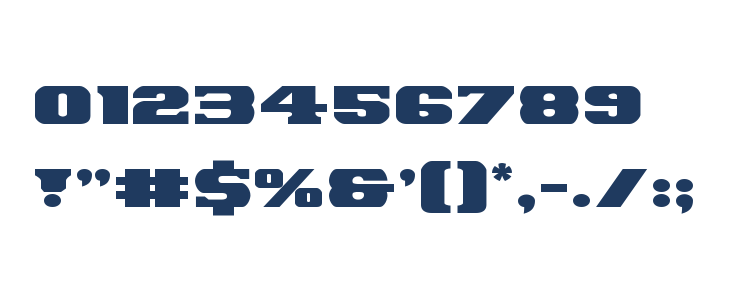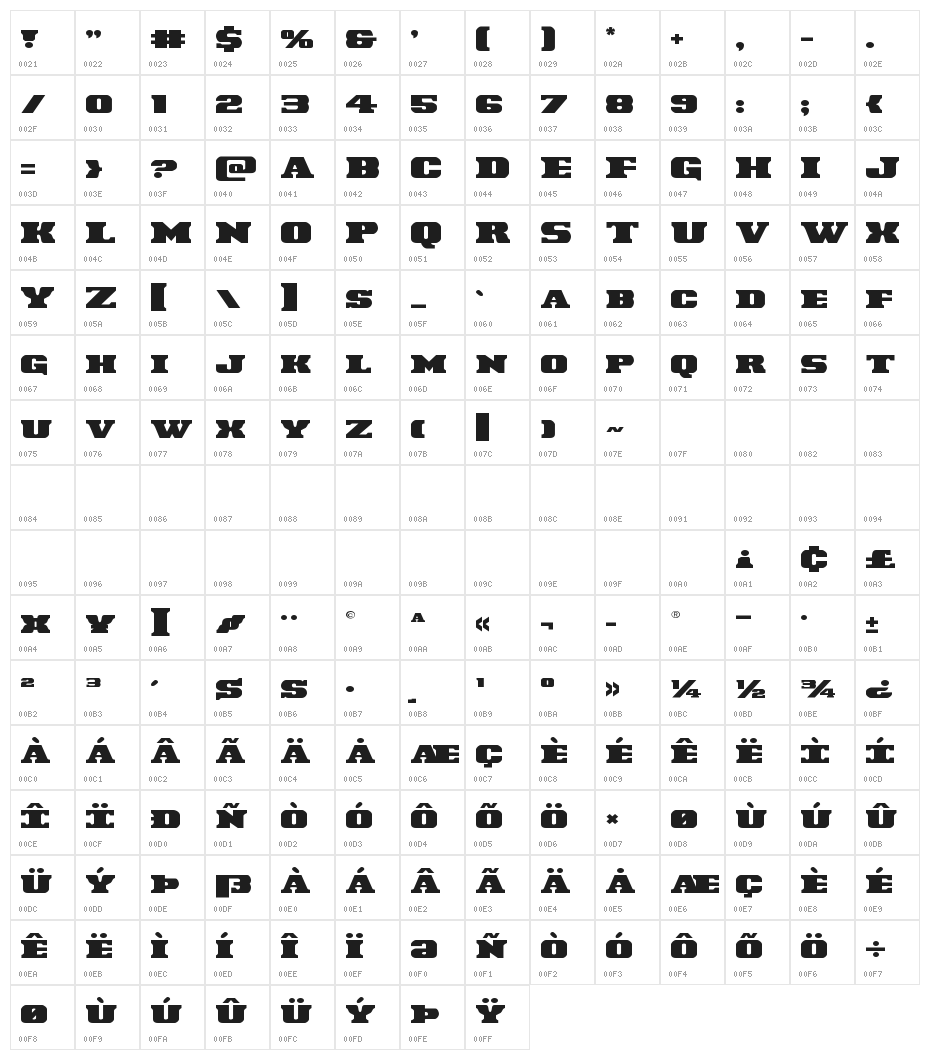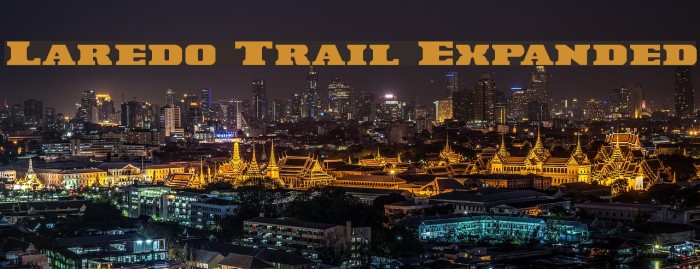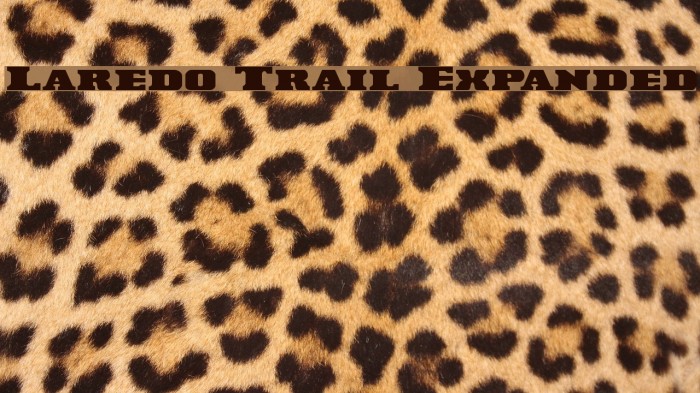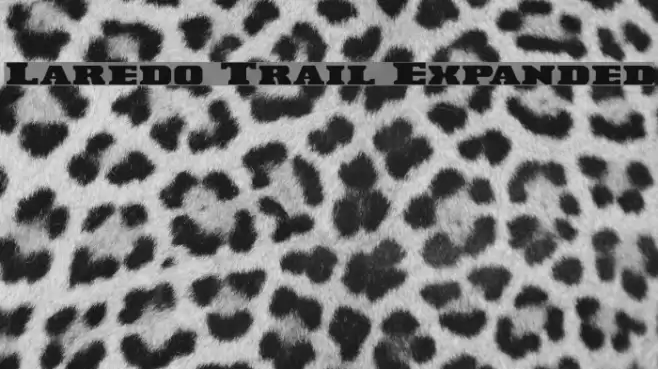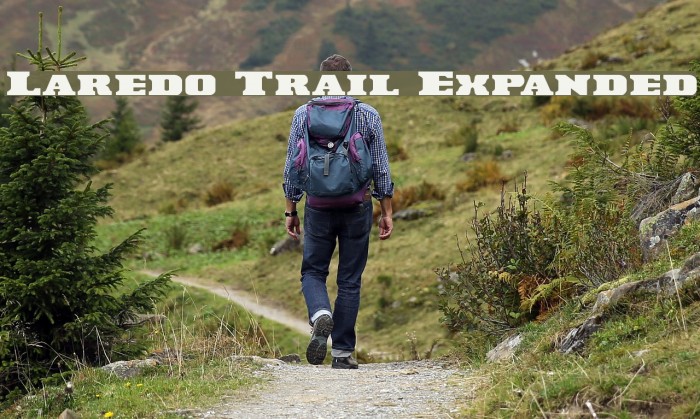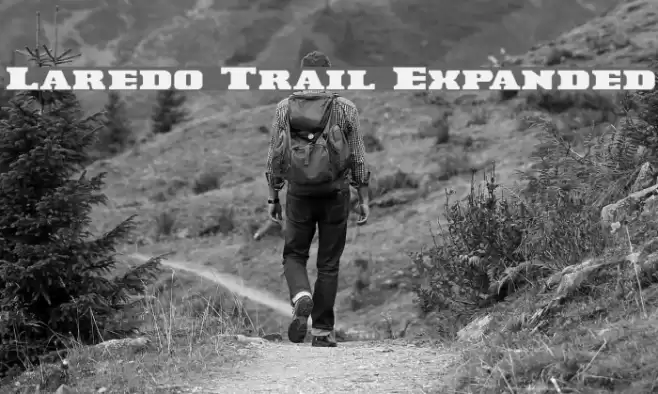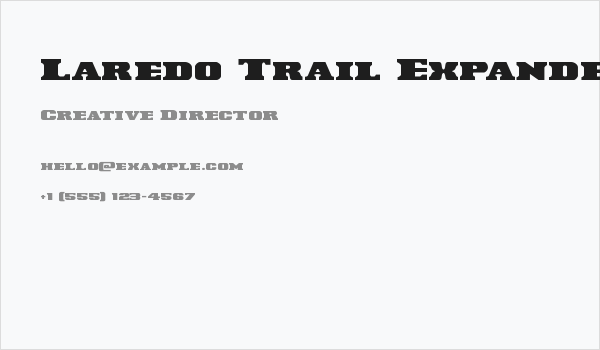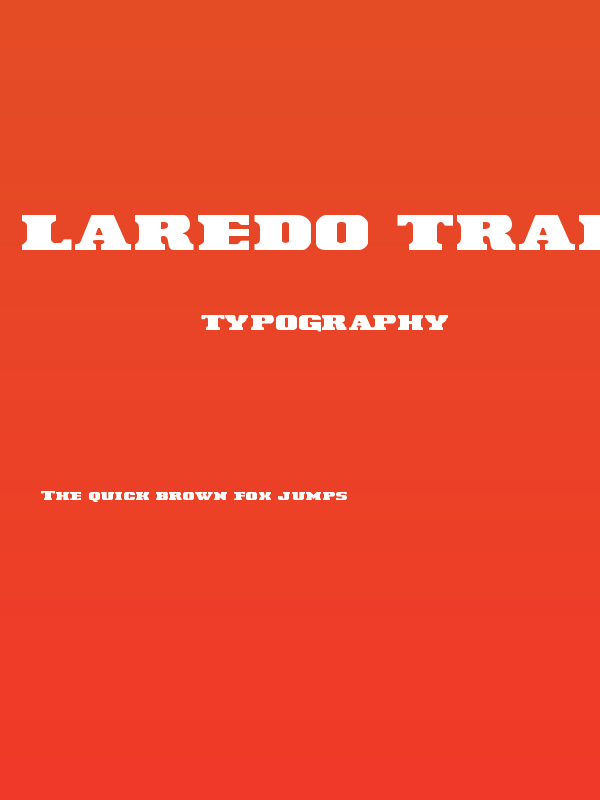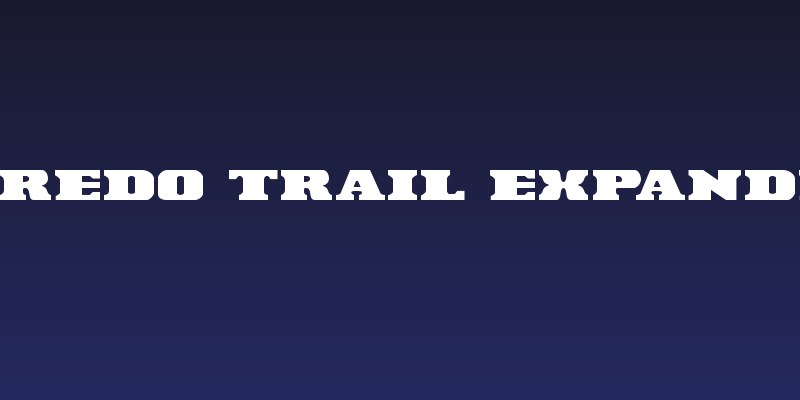
Laredo Trail Expanded Font
Laredo Trail Expanded Description
This font features a bold and robust design with strong, block-like characters that convey a sense of strength and stability. The letters are uniformly wide, giving the typeface a consistent and balanced appearance. The strokes are thick and uniform, with minimal contrast, enhancing its boldness. The style is reminiscent of Western or vintage themes, making it ideal for projects that require a touch of ruggedness or nostalgia. The characters are well-spaced, ensuring readability even at smaller sizes. Overall, this font exudes a powerful and commanding presence, suitable for impactful headlines or branding.
| Proposed Projects | Perfect for posters, logos, branding, and any design requiring a bold, vintage aesthetic. |